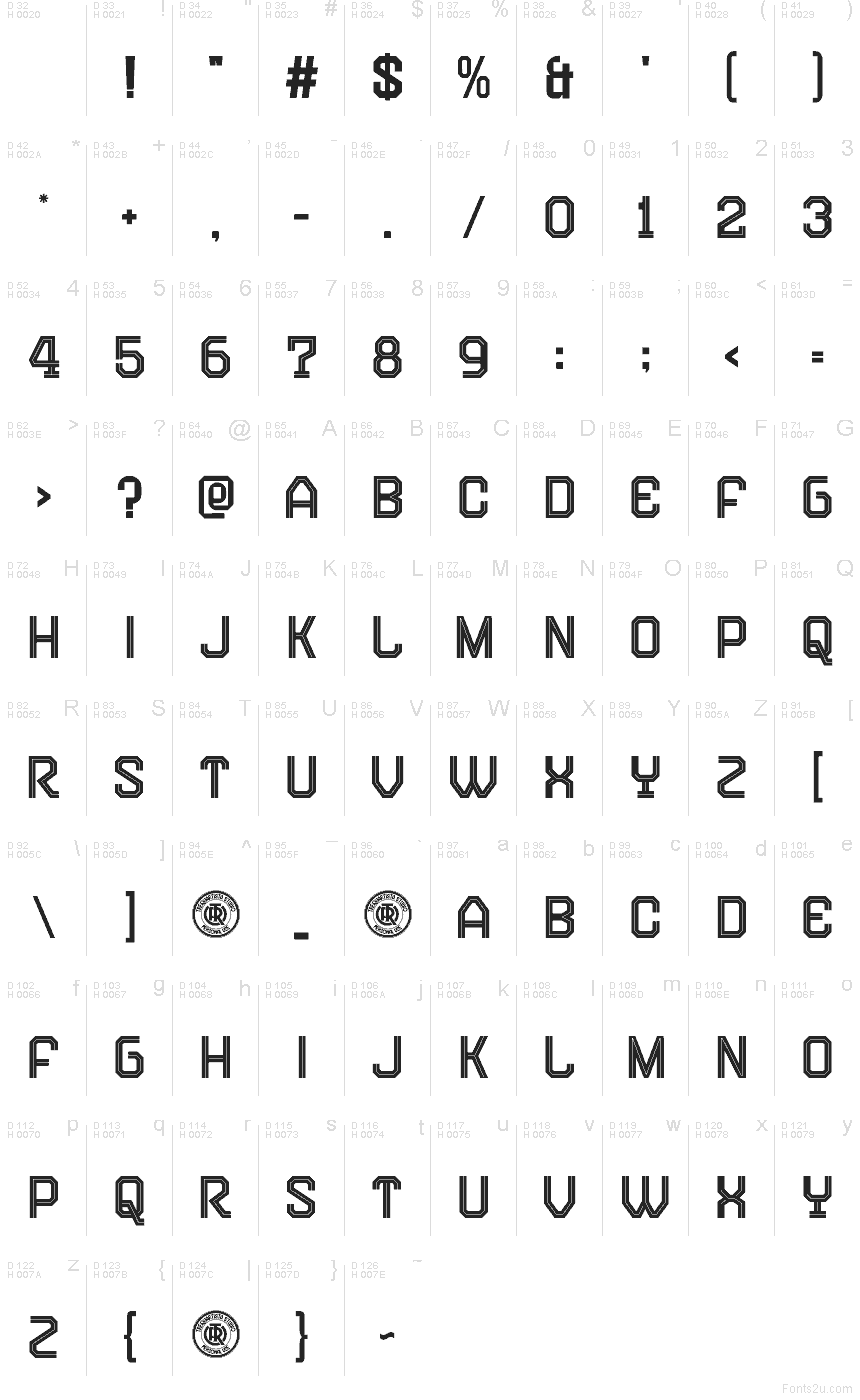
Tottenham 2 font by Trequartista Studio is a free techno display typeface with a striking double-line construction that feels like neon tubing bent into precise, futuristic letters. Its parallel strokes create a built‑in outline effect, giving every word a bold, architectural presence without needing extra graphic tricks. The Tottenham family’s angular rhythm and tight geometry make headlines look engineered rather than merely typeset.
Using Tottenham 2, you get instant impact for esports branding, sci‑fi posters, club flyers, sports graphics, gaming overlays, and YouTube thumbnails. This free font works best at larger sizes where the twin strokes read crisply and the inner shapes feel almost like a maze. Pair it with a clean geometric sans for supporting text to keep the focus on Tottenham 2’s electrified, tech‑driven character.
Tottenham Personal 2 — 字体展示
Trequartista Studio